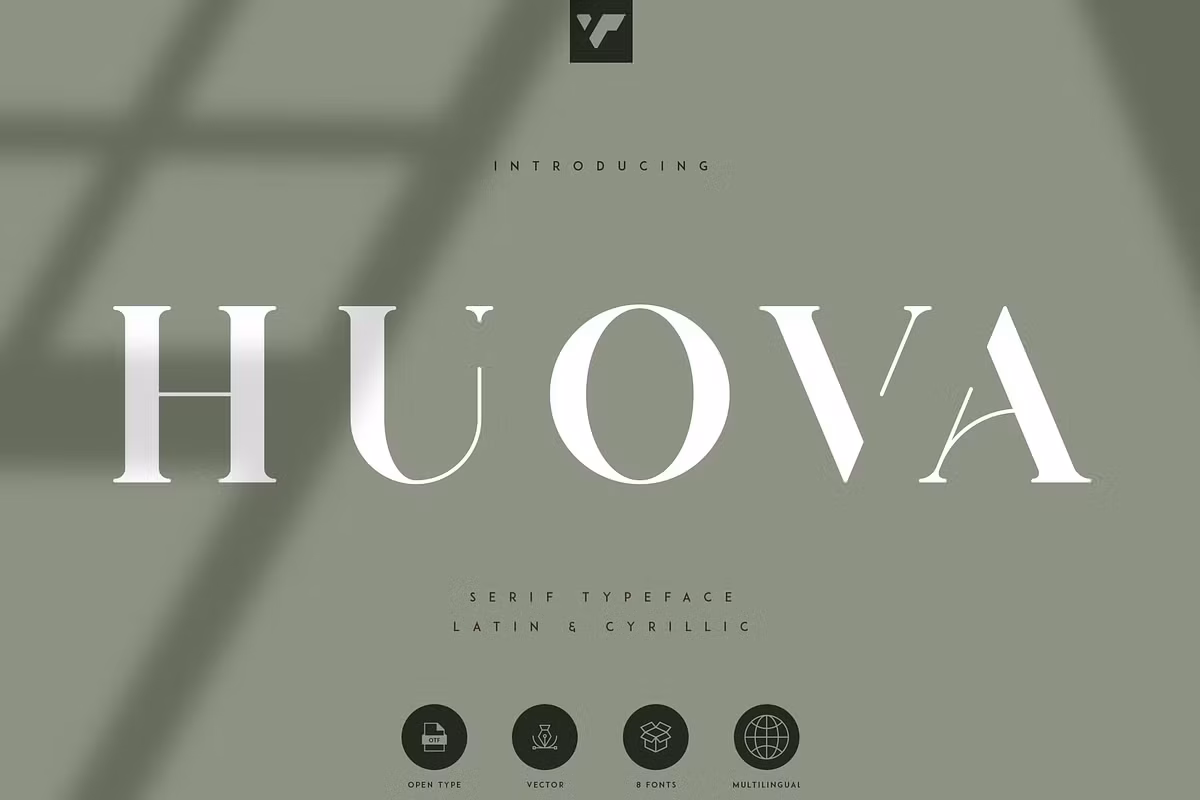
Huova Serif Typeface | 8 Fonts Free Download is a refined and versatile serif font family featuring 8 thoughtfully designed styles—from light to bold and matching italics. With its elegant curves, sharp serifs, and balanced contrast, Huova is ideal for editorial layouts, brand identities, book covers, wedding designs, packaging, and luxury marketing.
Each weight in the Huova Serif Typeface Free Download offers clarity and sophistication, allowing you to create strong typographic hierarchies while maintaining a cohesive look. The family includes ligatures and multilingual support, making it both beautiful and functional for professional use.